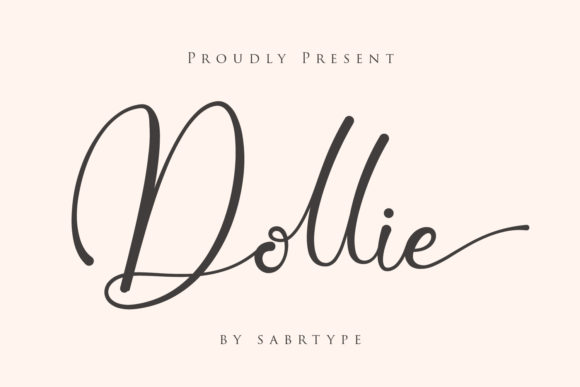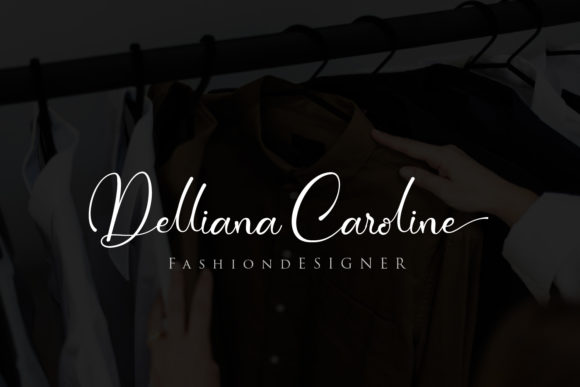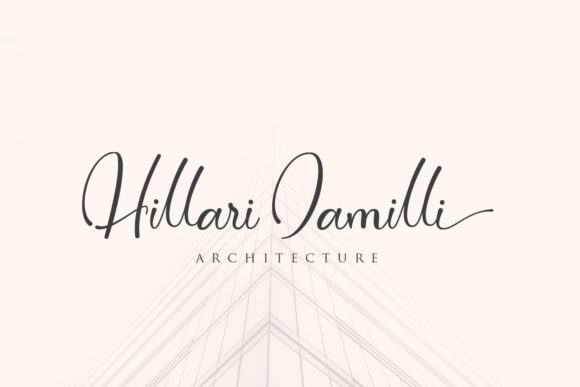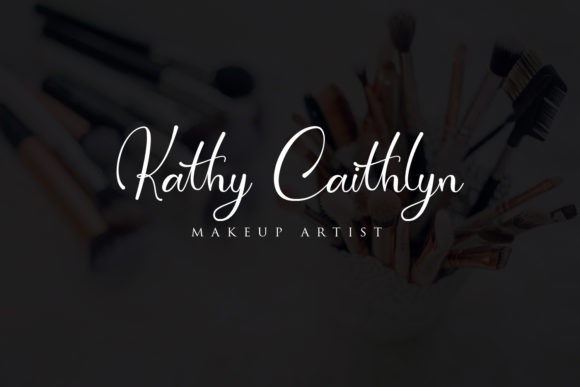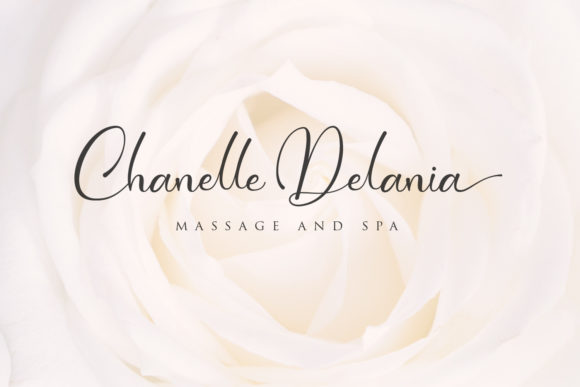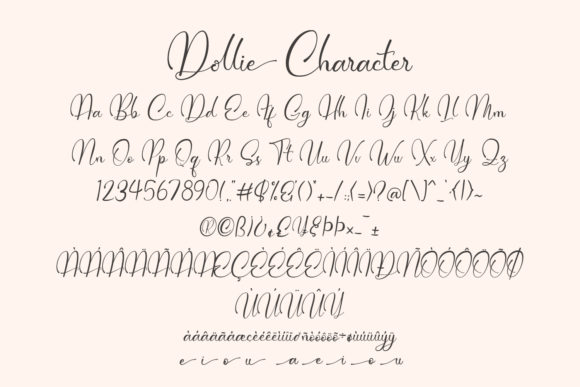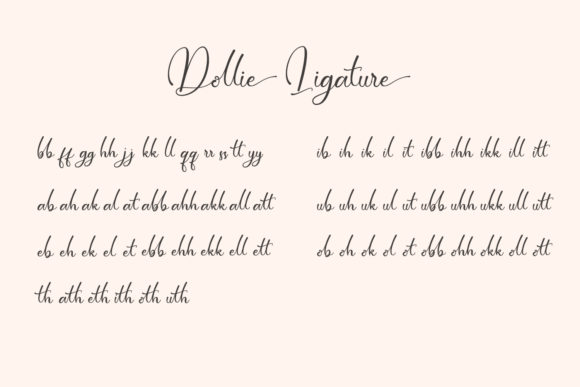
Dollie Font
About Dollie Font
The Dollie is an elegant script which is perfect for logos, branding, invitations, wedding designs, social media posts, and much more!